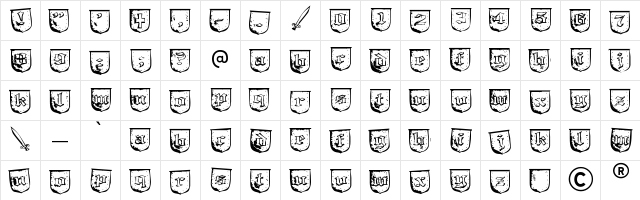
Complete Troll Bait Regular glyph index. Displaying only characters natively supported by Troll Bait Regular font.
Troll Bait is a composed and adaptable typeface that performs quietly and consistently across a wide range of design contexts.